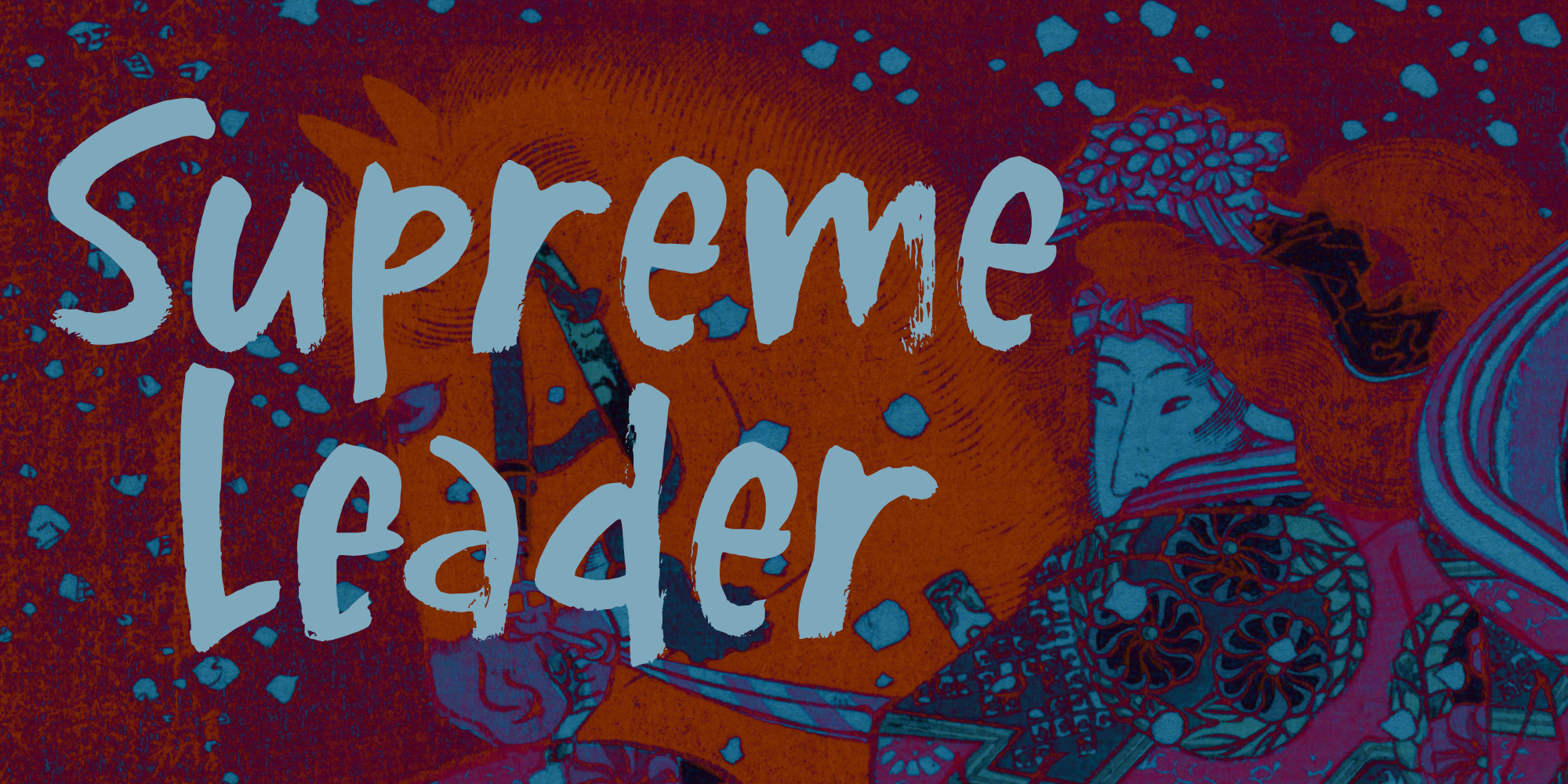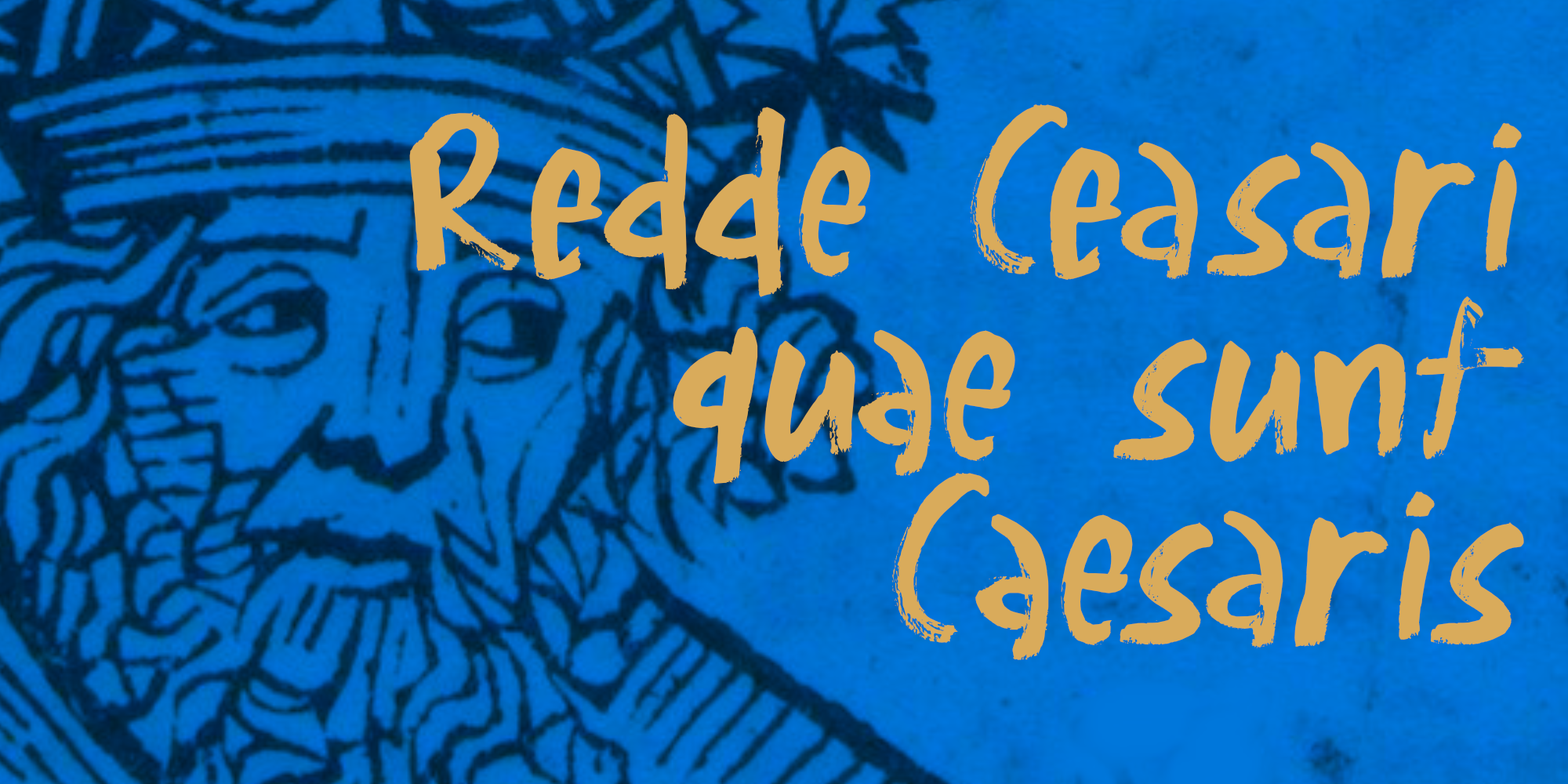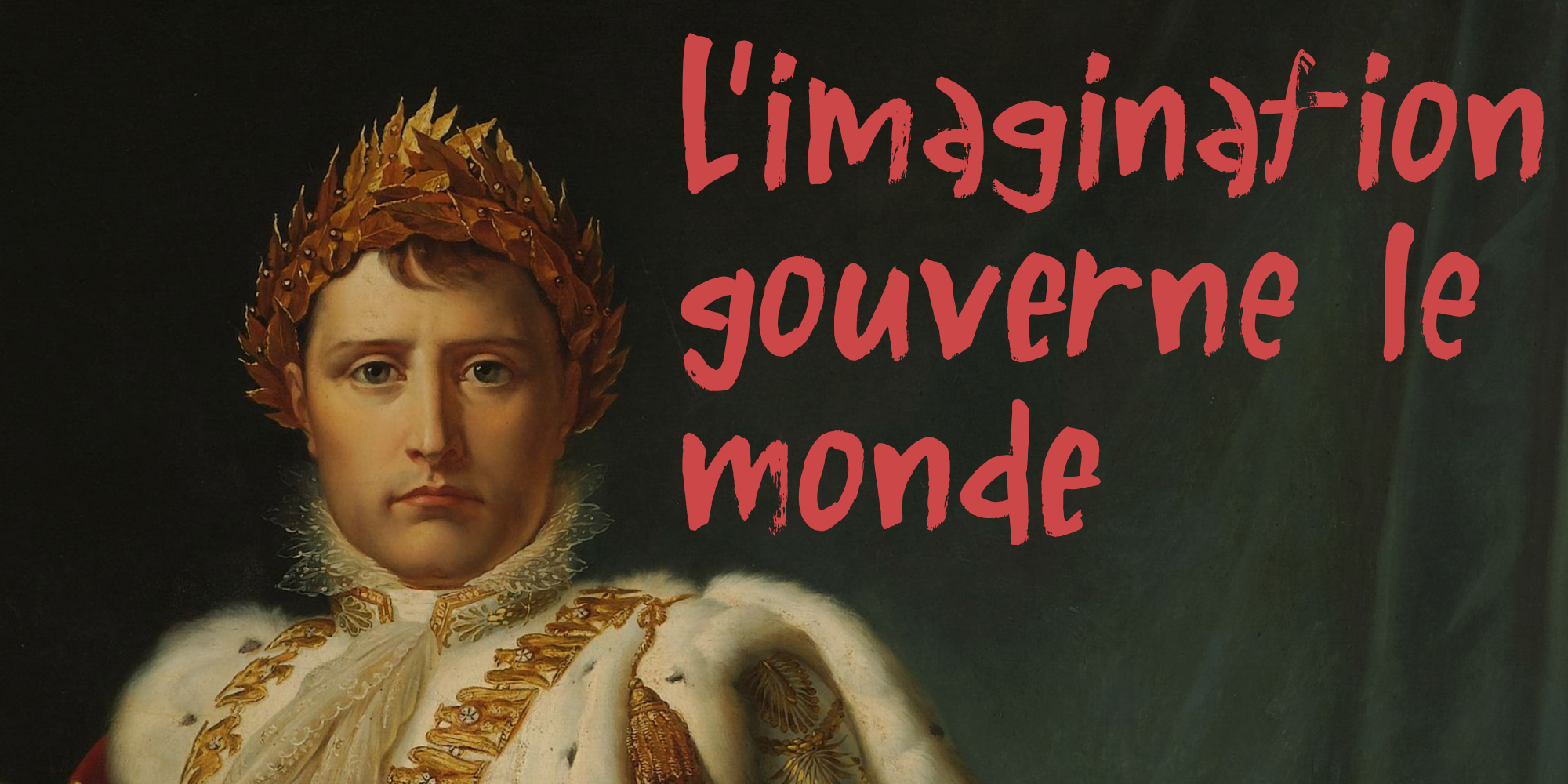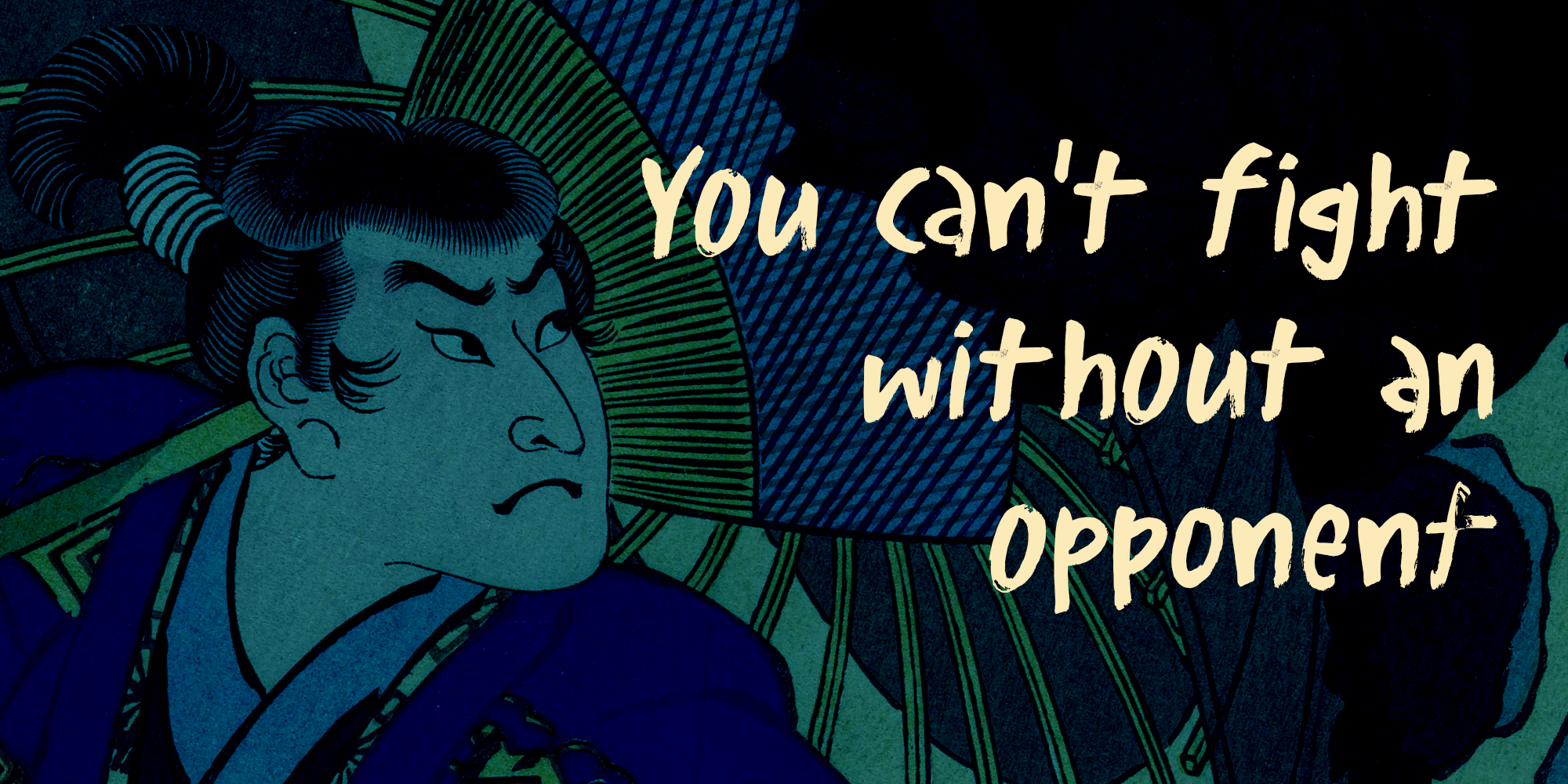
Supreme Leader (2 fonts)
Supreme Leader is a handmade brush font. I created it using Chinese ink and an old brush I have been using for a while now. Supreme Leader comes with extensive language support and a full set of alternates for the lower case letter.